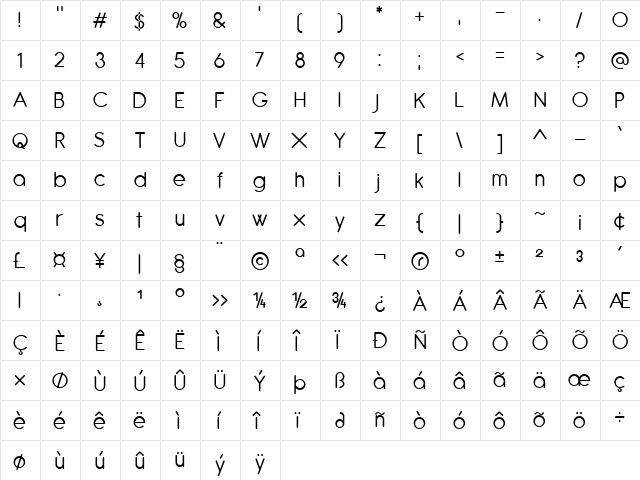
Antipasto Regular
| Foundry | Studio Kmzero |
| Designer | Francesco Canovaro, Cosimo Lorenzo Pancini, Katiuscia Mari |
Design Context for Antipasto Typeface
Antipasto is a composed and adaptable typeface that performs quietly and consistently across a wide range of design contexts.